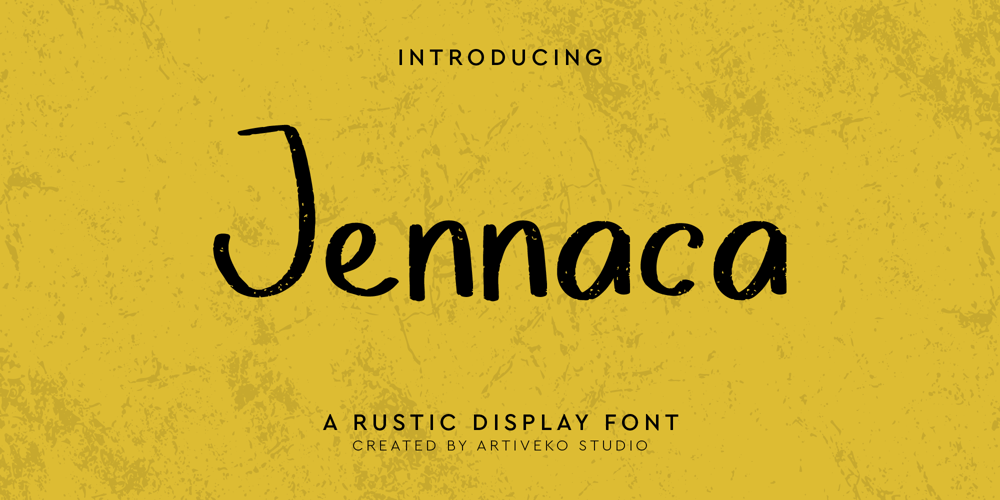
Jennaca Font Family was designed by Iwan Alwan and published by Artiveko. Jennaca contains 2 styles and family package options. Jennaca is a unique display font crafted by Iwan Alwan. It features distinct variations between uppercase and lowercase letters, adding a creative flair to any design. With multilingual support, Jennaca ensures your message is beautifully conveyed in multiple languages. Ideal for headlines, logos, and creative projects, this font’s striking appearance sets it apart, making it a versatile choice for designers seeking originality and elegance.